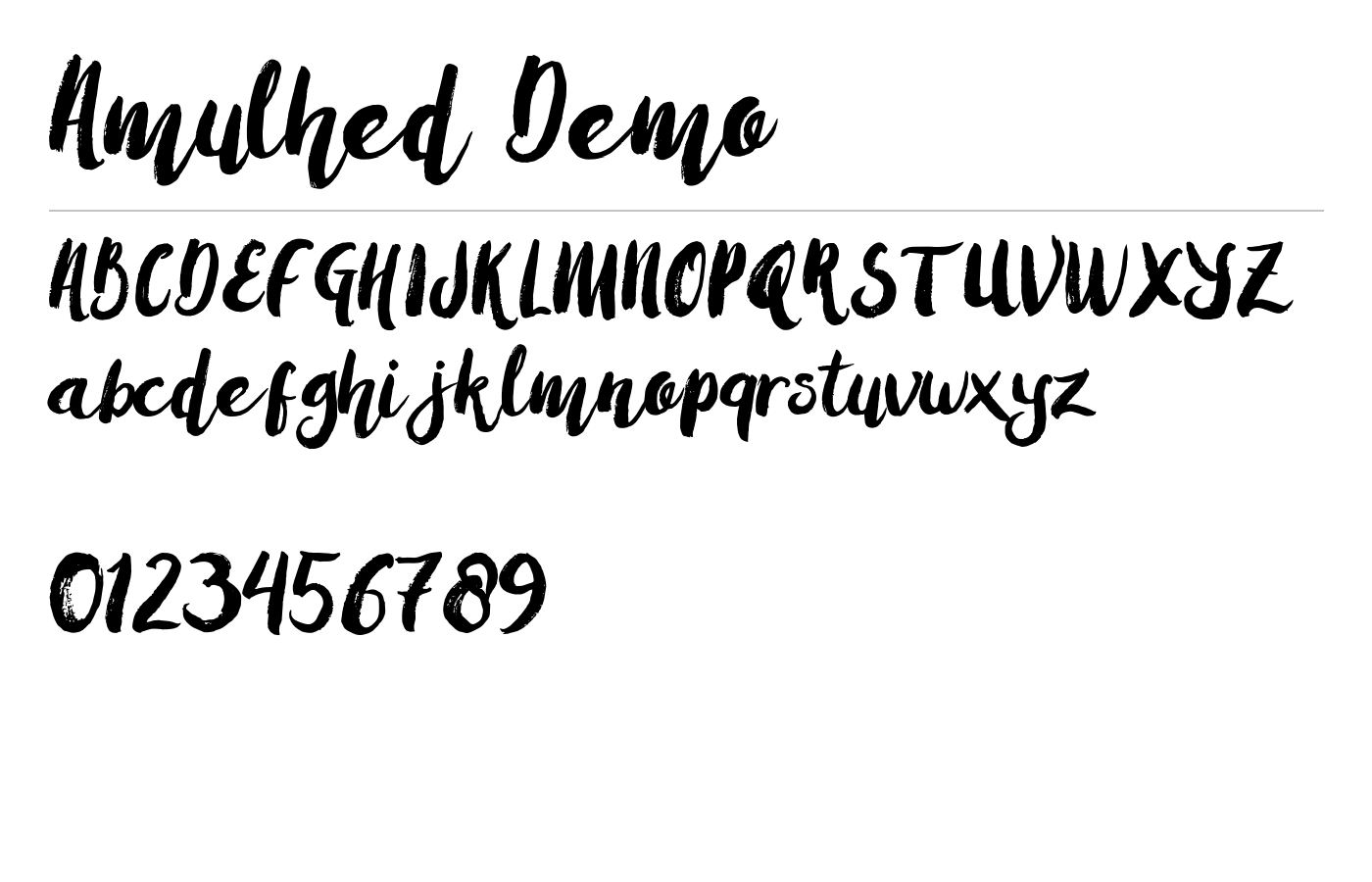
Amulhed Demo is a bold, brush script font that features dynamic, textured strokes giving it a lively, hand-painted feel. Its slightly condensed letterforms with playful curves make it perfect for creative and casual designs, adding a personal and energetic touch. This font works well for logos, headlines, and packaging where a vibrant, handcrafted look is desired.
Amulhed Demo Font
About Amulhed Demo Font